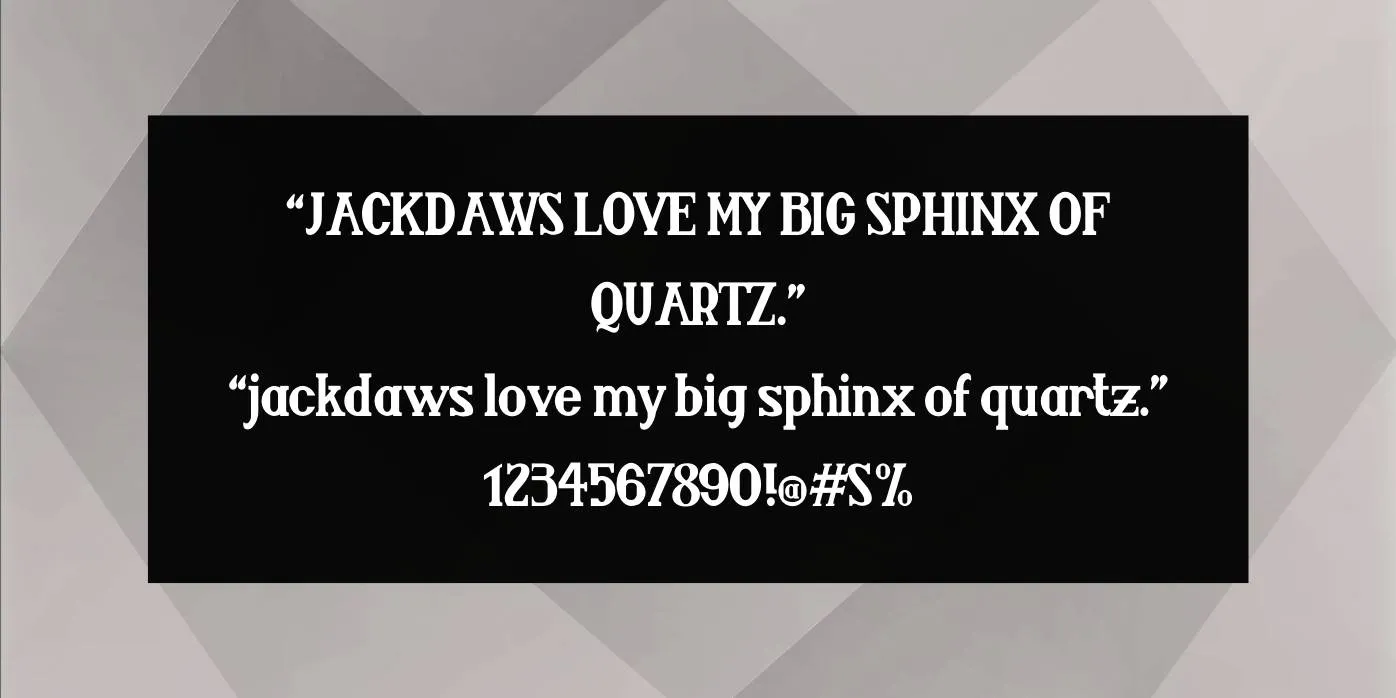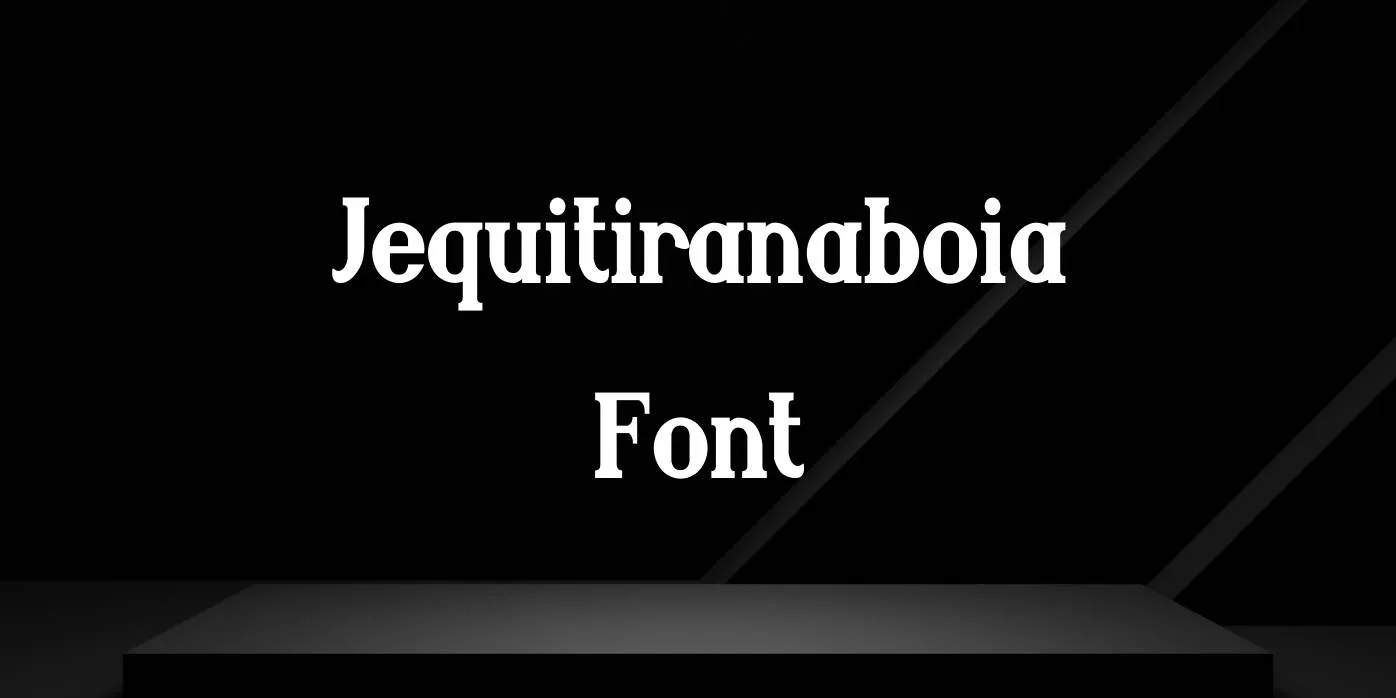
Jequitiranaboia Font
Jequitiranaboia Font is a great choice to use in our project. This font style was designed by Brazilian designer Adelson Gonzales de Oliveira junior in 2006. And be released by Matias Romero on 14 February 2020. This font typography is an amazing and traditional look, they include 452 characters, and a huge 416 glyphs include in this typeface.
This font family is perfect for all of your designing, especially for fun designs. This font subfamily has a regular. In the changing landscape of design, this typeface is useful and relevant. Simply you can compare this typeface with gravity point font.
Usage This typeface is a decorative typeface that Is simple and clean. Their texture look is so stylish they inspire the visitor. This font has been used by a different variety of companies or organizations, including PepsiCo, The Guardian, and red bull.  This font style supports both file formats such as TTF and OTF. The designer utilizes its clean typeface for different purposes including advertising, branding, and also for headings.
If you create beautiful product names, invitation letters, or short phrases with this font style add a stylish look to your design. It’s perfect for posters, flyers, invitations, and different marketing purposes. This font is very close to the motter ombra font. That typeface is not available on google font library but you can easily download that simple and clean typeface from our website.